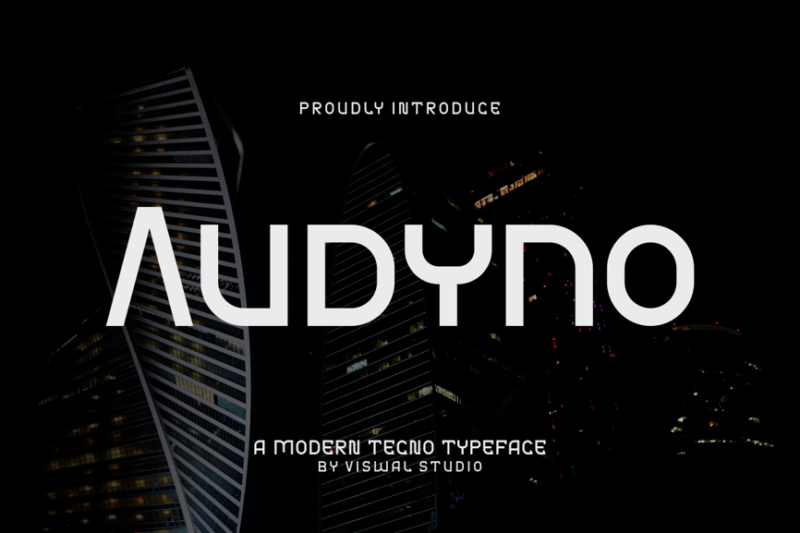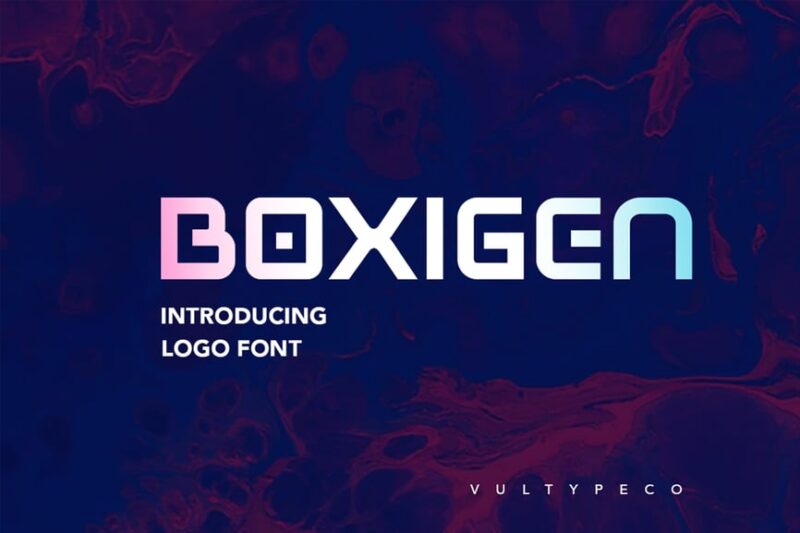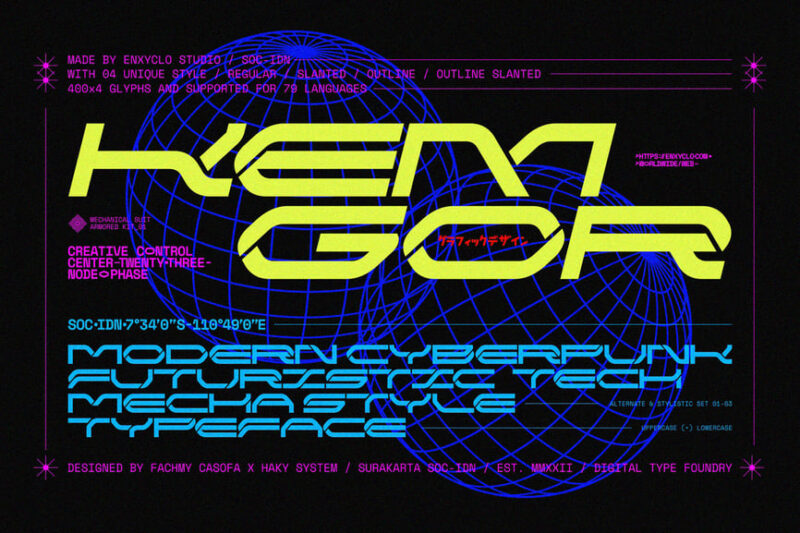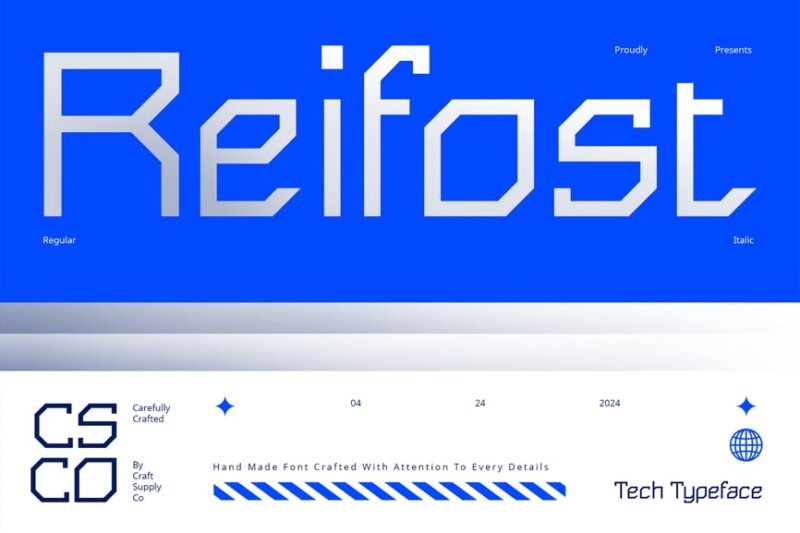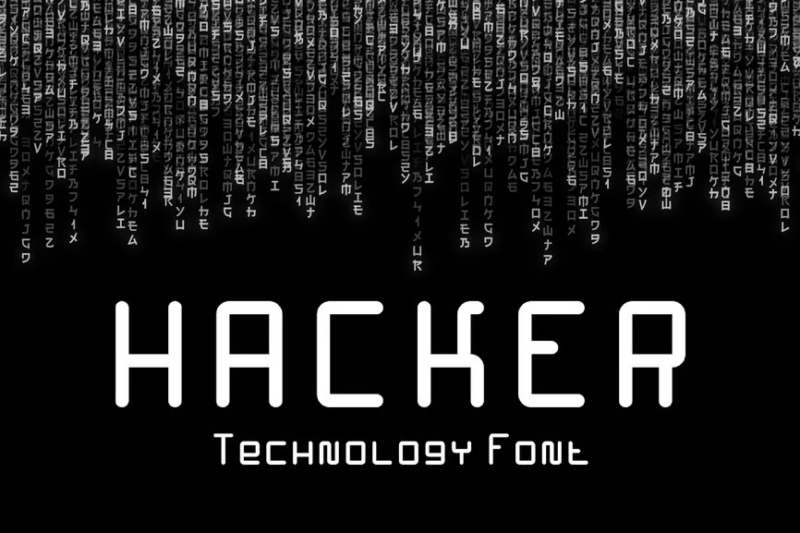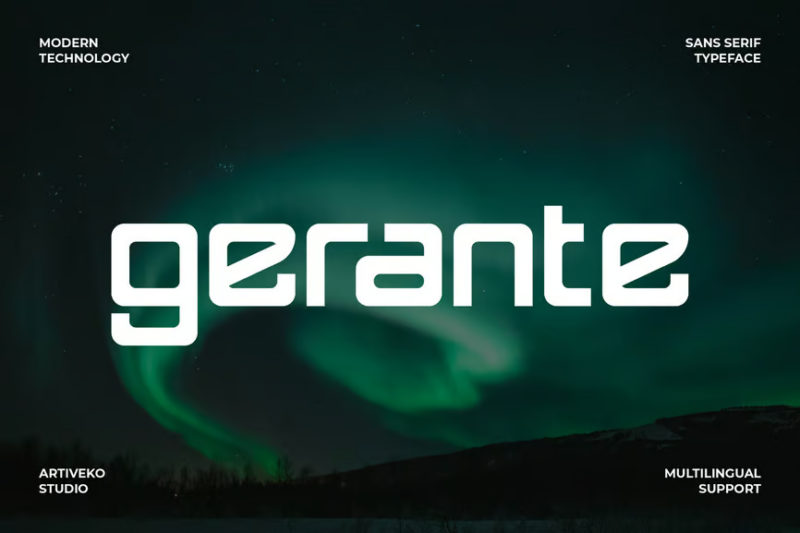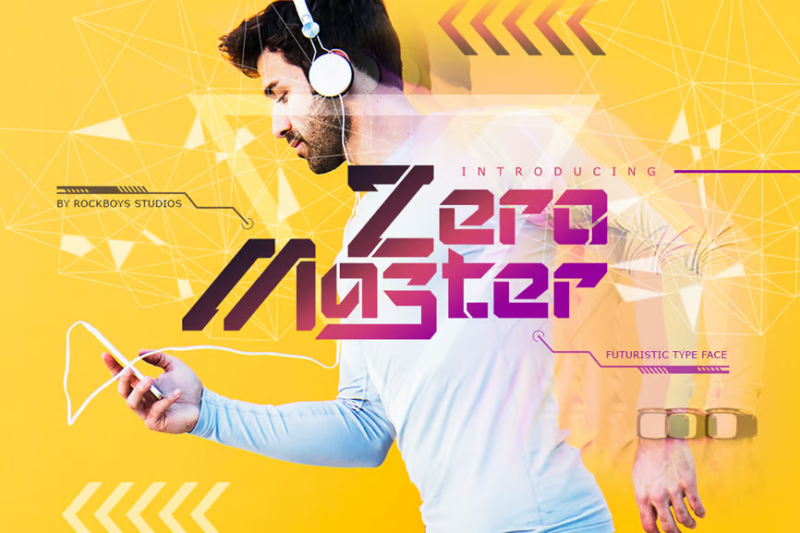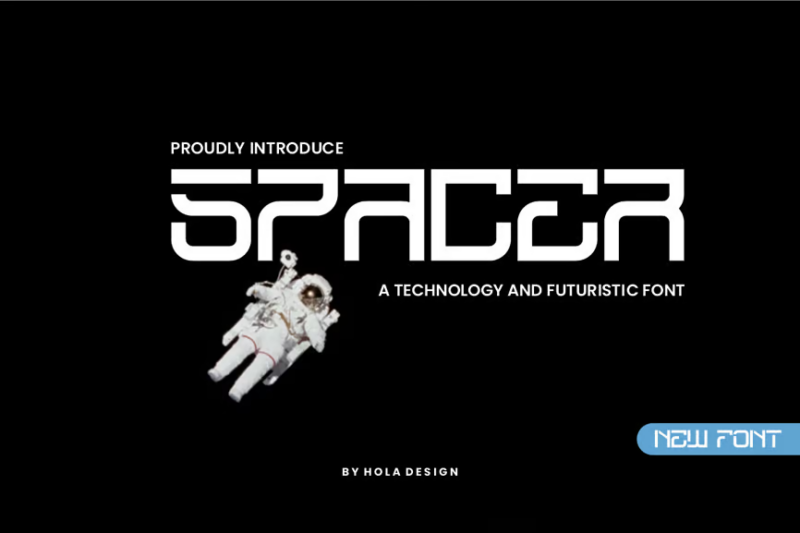
The evolution from clunky bitmap fonts of early computers to the sleek, responsive tech fonts we use today tells a fascinating story about our relationship with technology.
In this deep dive, we’ll explore the most innovative tech fonts that are defining the digital landscape in 2026. So fire up your favorite design software, and let’s decode the DNA of the typefaces that power our connected world!
The Most Innovative Tech Fonts of 2026
Let’s explore the tech fonts that are making the biggest impact right now. Each one brings something unique to the digital design space:
Audyno
Audyno is a sleek, modern sans-serif typeface with a technological flair. Its clean lines and balanced proportions make it versatile for both tech and sports-related designs, offering readability and a contemporary feel.
BOXIGEN
BOXIGEN is a strong, geometric sans-serif font that embodies a technological aesthetic. Its boxy characters and sharp edges create a futuristic look, ideal for tech branding and digital-focused designs.
NCL Kemgor
NCL Kemgor is a bold, cyberpunk-inspired decorative font. Its futuristic design with mechanical and digital elements makes it perfect for sci-fi, mecha, and cyber-themed projects, adding a strong visual impact to designs.
Getboreg Minus Tech
Getboreg Minus Tech is a minimalist, tech-inspired sans-serif font. Its clean lines and subtle tech elements make it suitable for AI and coding-related designs, offering a modern and sophisticated look.
Reifost
Reifost is a modern, geometric decorative typeface with a technological edge. Its clean shapes and futuristic design make it ideal for tech-related branding and contemporary graphic designs, offering a sleek and innovative look.
Hacker
Hacker is a bold, decorative font that embodies the essence of technology and computer culture. Its edgy design and digital-inspired characters make it perfect for hacker-themed projects and tech-related graphics.
Gerante Technology Font
Gerante is a modern sans-serif font with a technological twist. Its clean lines and subtle tech-inspired details make it versatile for various tech-related designs, offering a contemporary and professional look.
Braze Creative Technology Font
Braze is an elegant sans-serif font with a technological edge. Its refined design combines modern aesthetics with tech-inspired elements, making it suitable for creative and innovative tech branding and designs.
Zero Master
Zero Master is a futuristic sans-serif font with a sci-fi flair. Its unique design incorporates planetary and space-age elements, making it perfect for science fiction-themed projects and tech-forward designs.
Spacer
Spacer is a Y2K-inspired sans-serif font with a technological twist. Its retro-futuristic design captures the essence of early 2000s tech aesthetics, making it ideal for nostalgic tech projects and modern interpretations of Y2K style.
Moonspace
Moonspace is a sleek, futuristic sans-serif font with a tech and sports-inspired design. Its clean lines and modern aesthetics make it versatile for various applications, from tech branding to sporty graphics.
Robox Grotech
Robox Grotech is a bold, decorative font that combines cyber and tech elements. Its unique design makes it perfect for creating eye-catching logos and vector graphics with a strong technological feel.
CS Aphex
CS Aphex is a futuristic decorative font with a modern tech aesthetic. Its innovative design and clean lines make it ideal for cutting-edge tech branding and forward-thinking graphic designs.
Tanire
Tanire is a bold, futuristic decorative font with a strong tech influence. Its unique character shapes and techno-inspired design make it perfect for hero graphics and attention-grabbing tech-related designs.
Mind Control
Mind Control is a striking, futuristic decorative font with a virtual reality aesthetic. Its innovative design and tech-inspired elements make it ideal for projects related to AI, VR, and cutting-edge technology.
Cyber Bresero
Cyber Bresero is a condensed decorative font with a digital and tech-inspired design. Its sporty feel and futuristic elements make it perfect for tech-related sports branding and dynamic graphic designs.
Clasico Space
Clasico Space is a unique decorative font that blends cyber-tech elements with Art Deco influences. Its distinctive design makes it ideal for projects that require a fusion of retro and futuristic aesthetics.
Hacklife
Hacklife is a bold, edgy tech font that embraces a modern digital aesthetic. Its sharp angles and geometric shapes make it perfect for tech-related designs and game interfaces, offering a cutting-edge look that stands out in display applications.
In this ever-evolving landscape, one thing remains constant: the best tech fonts will continue to balance technical performance with human needs. They’ll help us navigate increasingly complex digital worlds while maintaining the warmth and clarity that makes technology accessible to everyone.
So next time you’re designing a digital product or brand experience, give typography the attention it deserves. The right tech font doesn’t just display information – it shapes how users perceive, interact with, and connect to technology itself.